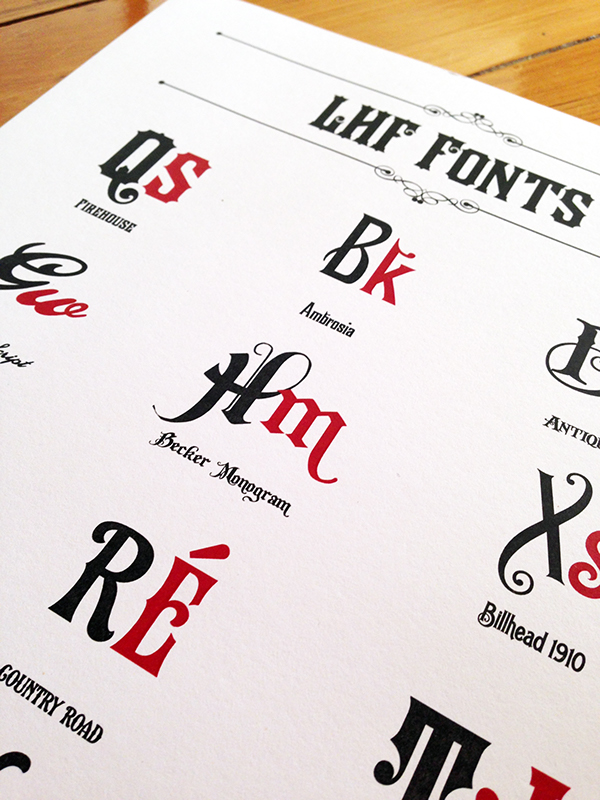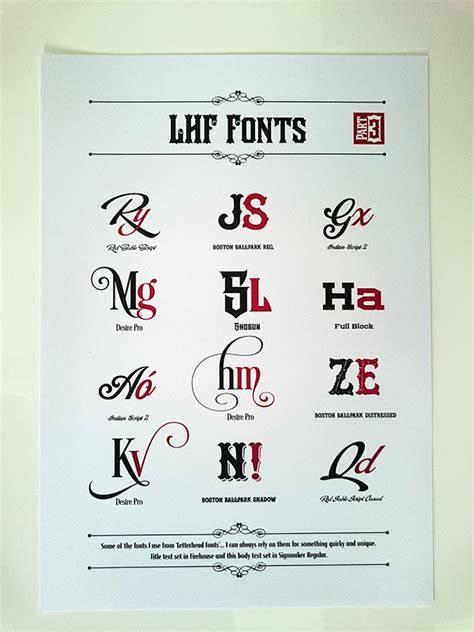
What Are Lhf Fonts? An Overview Of The Trending Typeface In 2023
As the world of design and typography evolves, so do the trends. In 2023, LHF fonts are among the most popular typefaces. LHF stands for Letterhead Fonts, and it’s a company that creates unique and high-quality fonts for a variety of purposes. Whether you’re a designer looking for a unique typeface for a project or a business looking to amp up your branding, LHF fonts may be the perfect choice.
A Brief History of LHF Fonts
Letterhead Fonts was founded by Mike Dutton in 1995. At the time, he was a graphic artist and a type designer, and he wanted to create a library of fonts that could be used in a variety of projects. Over the years, his fonts have been used in a variety of ways, from logos to magazine covers. In the late 2000s, LHF gained a resurgence in popularity, and it has continued to be a popular choice for designers in the decade since.
What Makes LHF Fonts Unique?
LHF fonts are unique for a variety of reasons. For starters, they are hand-crafted by Mike Dutton himself, making each font truly one-of-a-kind. Additionally, they have a classic, timeless look that makes them perfect for any project. Many of the fonts have a vintage feel, while others are more modern and contemporary. No matter the style of your project, LHF fonts are sure to provide the perfect typeface.
How Can I Use LHF Fonts?
LHF fonts are perfect for a variety of projects. They are perfect for logos, branding, and marketing materials. They can also be used for posters, flyers, brochures, and other printed media. Additionally, LHF fonts are great for websites and digital graphics. This versatility makes LHF fonts a great choice for any project.
LHF fonts are a great choice for any project. They are hand-crafted, unique, and timeless, making them perfect for logos, branding, and marketing materials. Additionally, they are versatile and can be used for both print and digital projects. With so many options to choose from, you’re sure to find the perfect LHF font for your project.